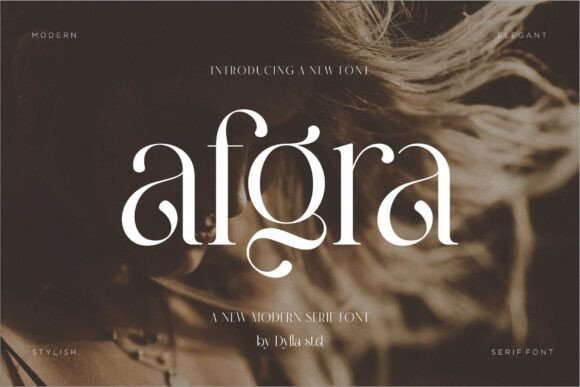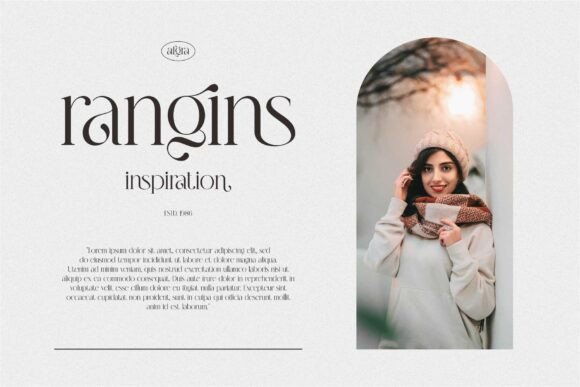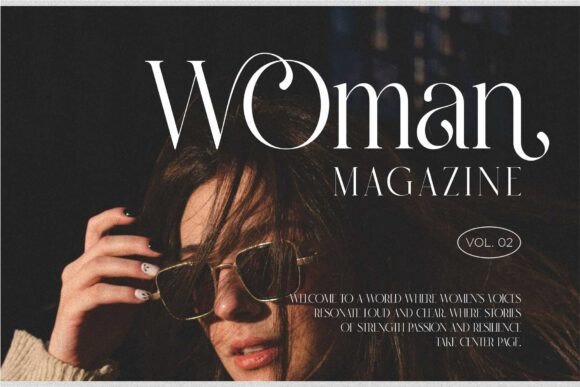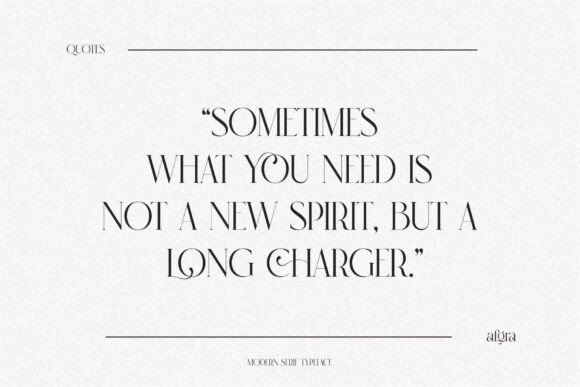
Afgra Font: Elegant Serif Typeface for Modern Logo Design & Branding
About the Afgra Font
Explore the possibilities with Afgra Font, a font that offers both beauty and functionality. **Afgra Modern Serif Typeface** is inspired by the famous minimalist logo and is perfect for designing templates, brochures, videos, advertising branding, logos, invitations, layout design, elegant crafting, beauty design, and more.
Afgra’s clean lines and subtle serifs make it ideal for headlines, logos, and short, impactful text within branding materials and posters. Its minimalist aesthetic lends itself well to sophisticated projects requiring a sense of understated elegance. Avoid using Afgra for large blocks of body text or UI elements; its refined style can become monotonous in extensive applications.
Pairing Afgra with a geometric sans-serif like Futura or a neutral sans-serif like Open Sans creates a balanced contrast, enhancing its modern feel. For a more luxurious touch, consider pairing it with a delicate script font for added flair in invitations or branding applications where a touch of elegance is desired.
Afgra projects an overall personality of refined modernity and understated boldness. It’s a strong choice for brands aiming for a sophisticated yet accessible image – think high-end fashion, premium products, or architectural firms.